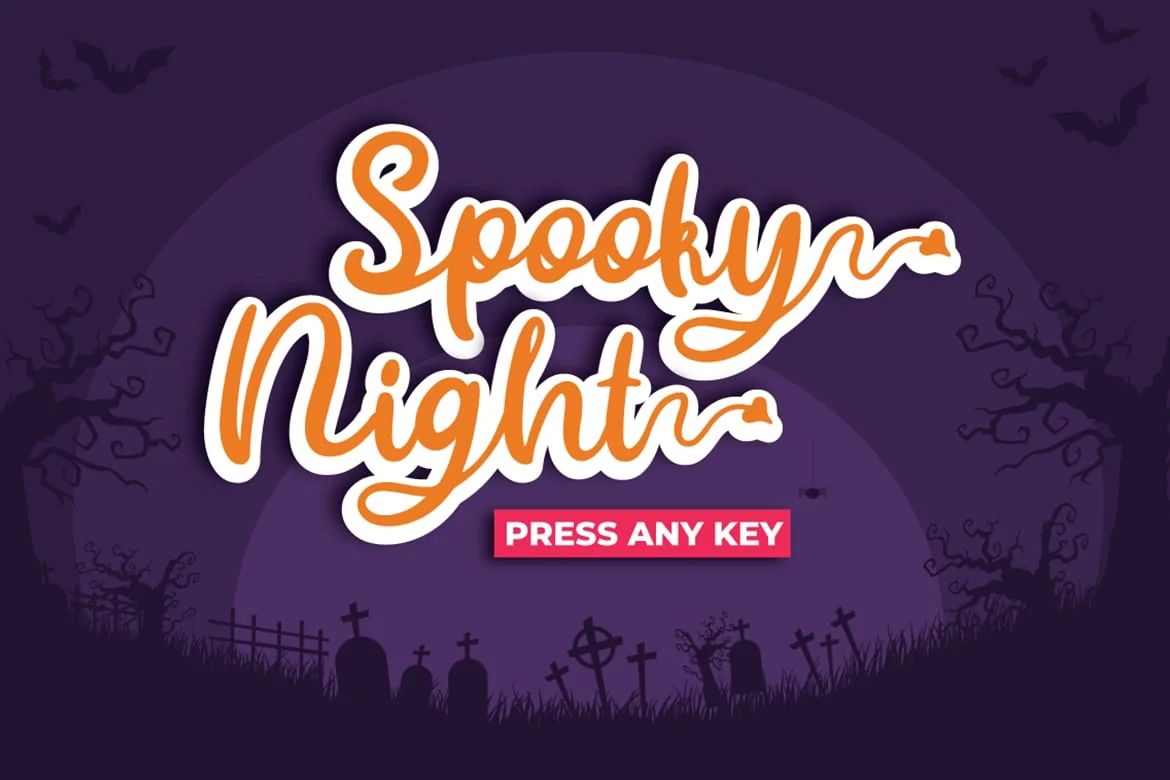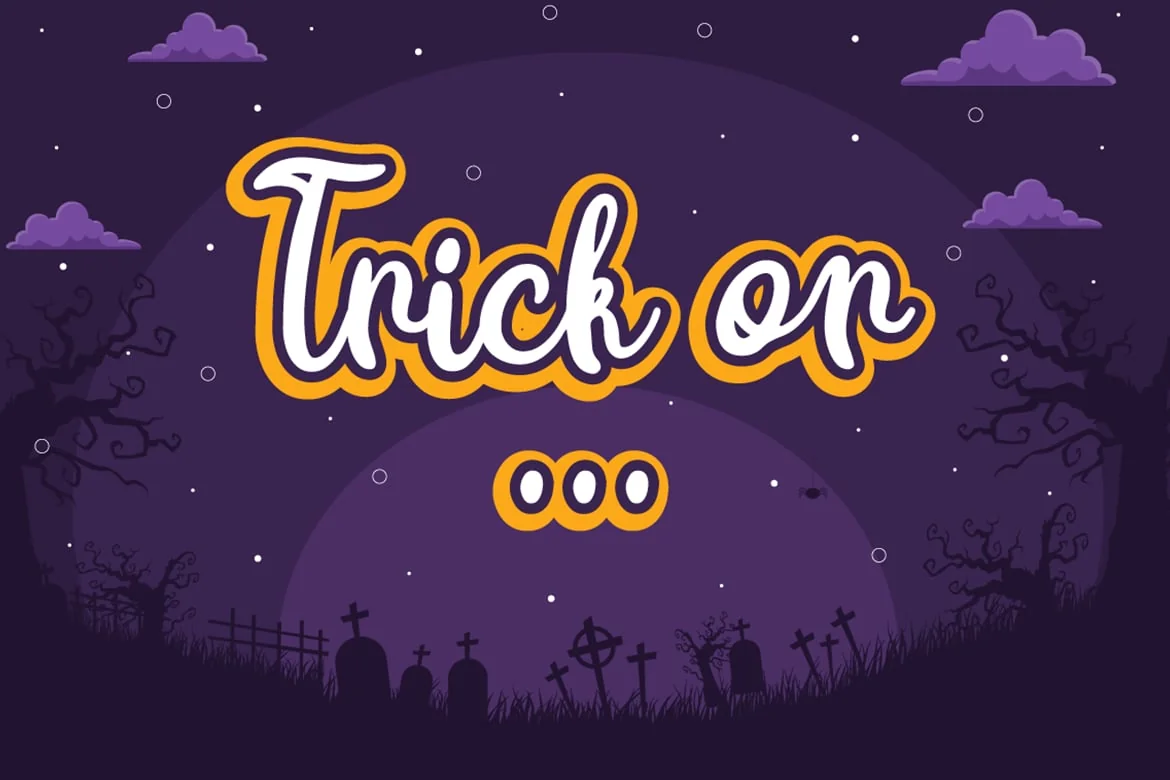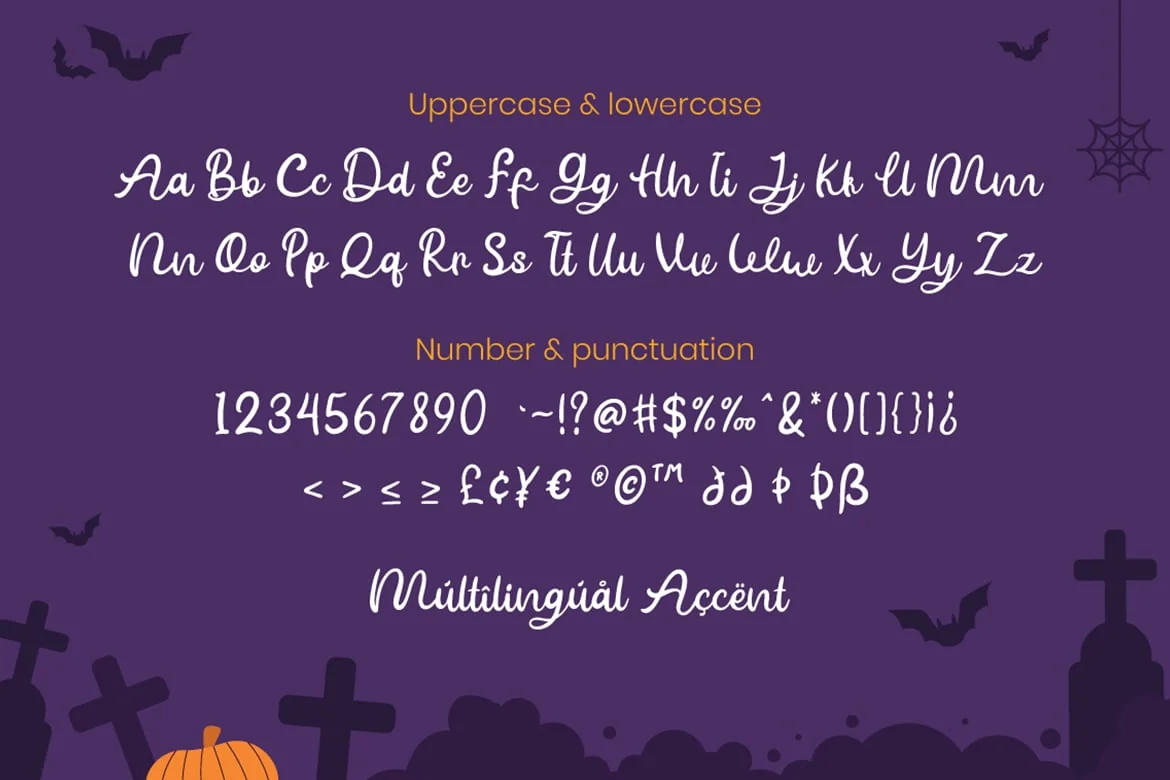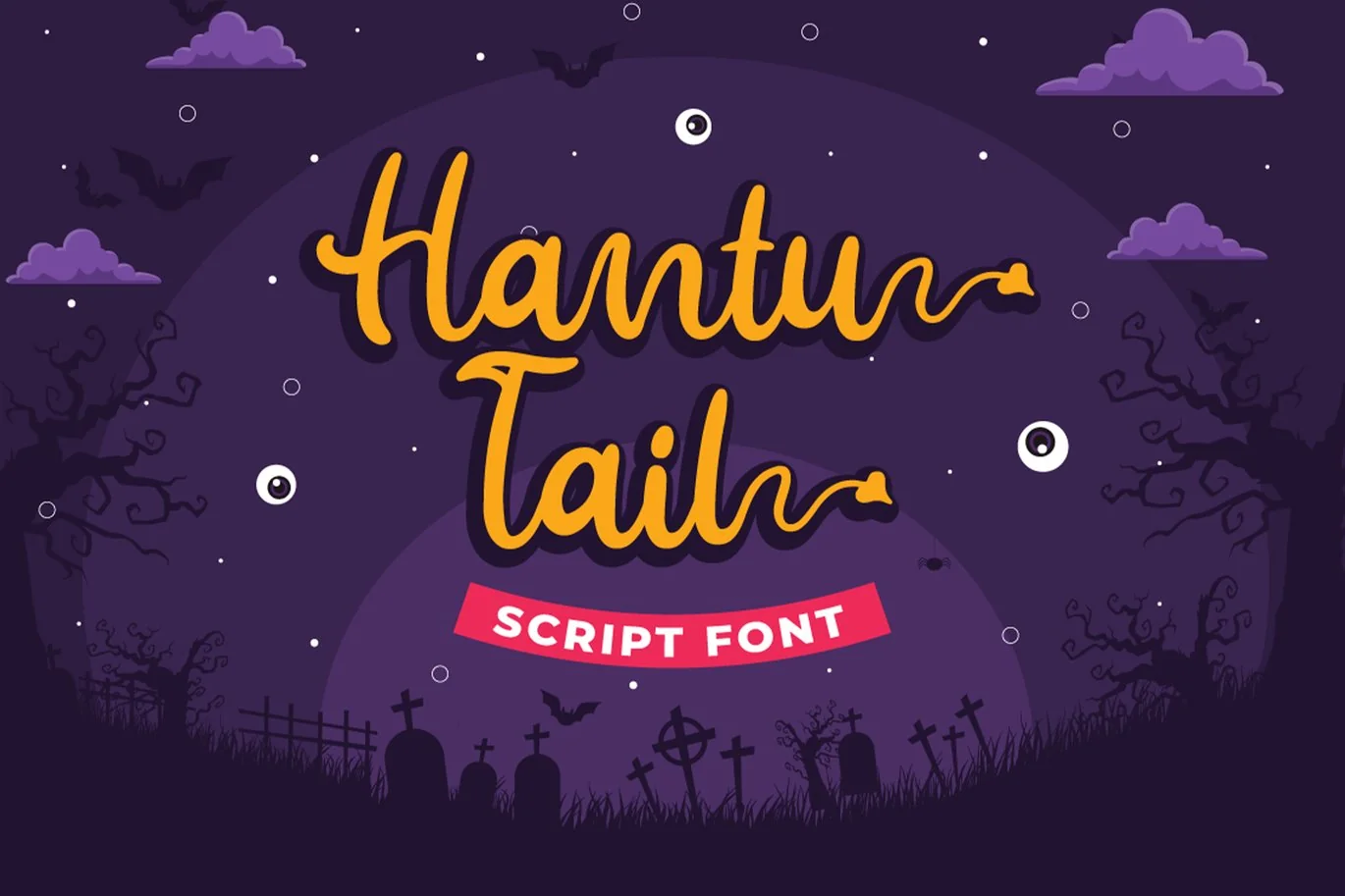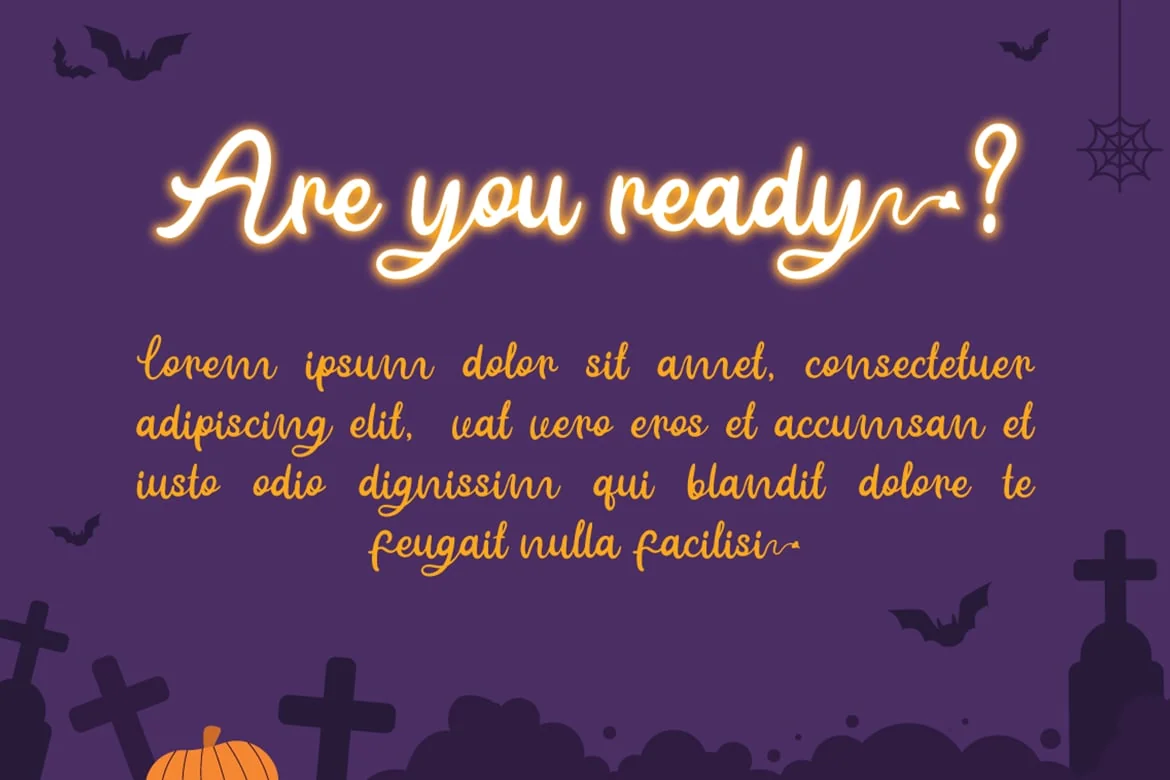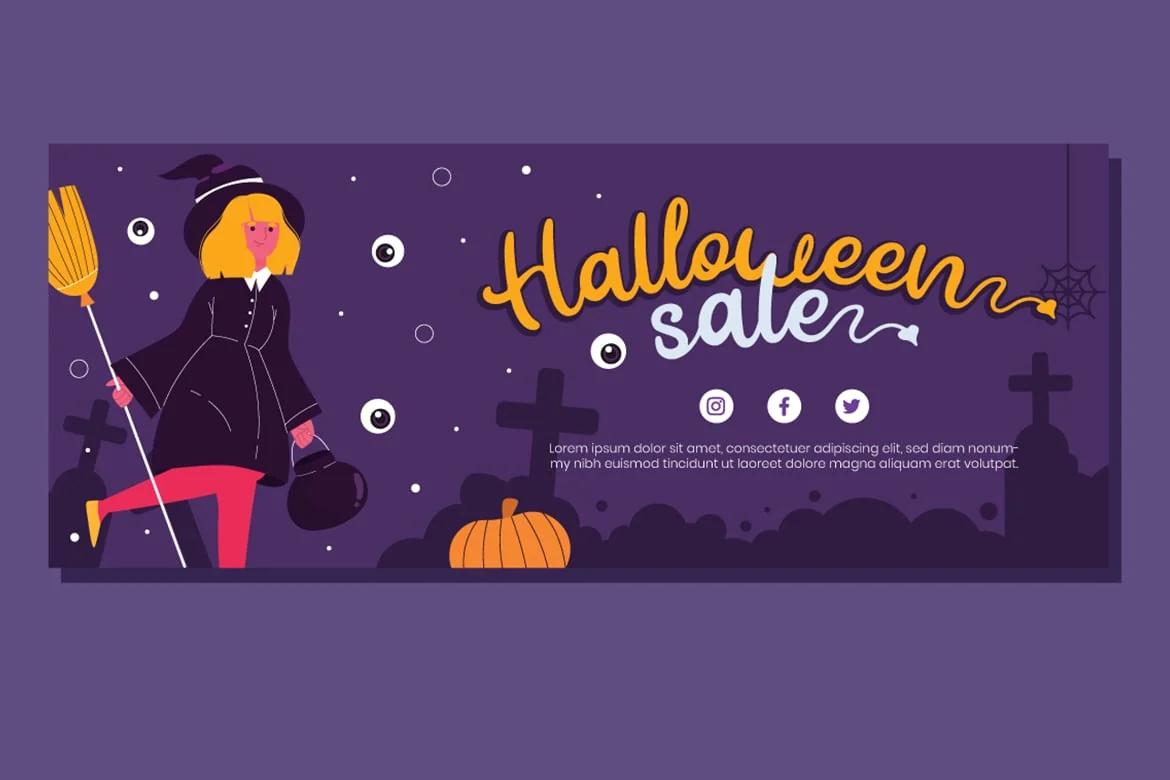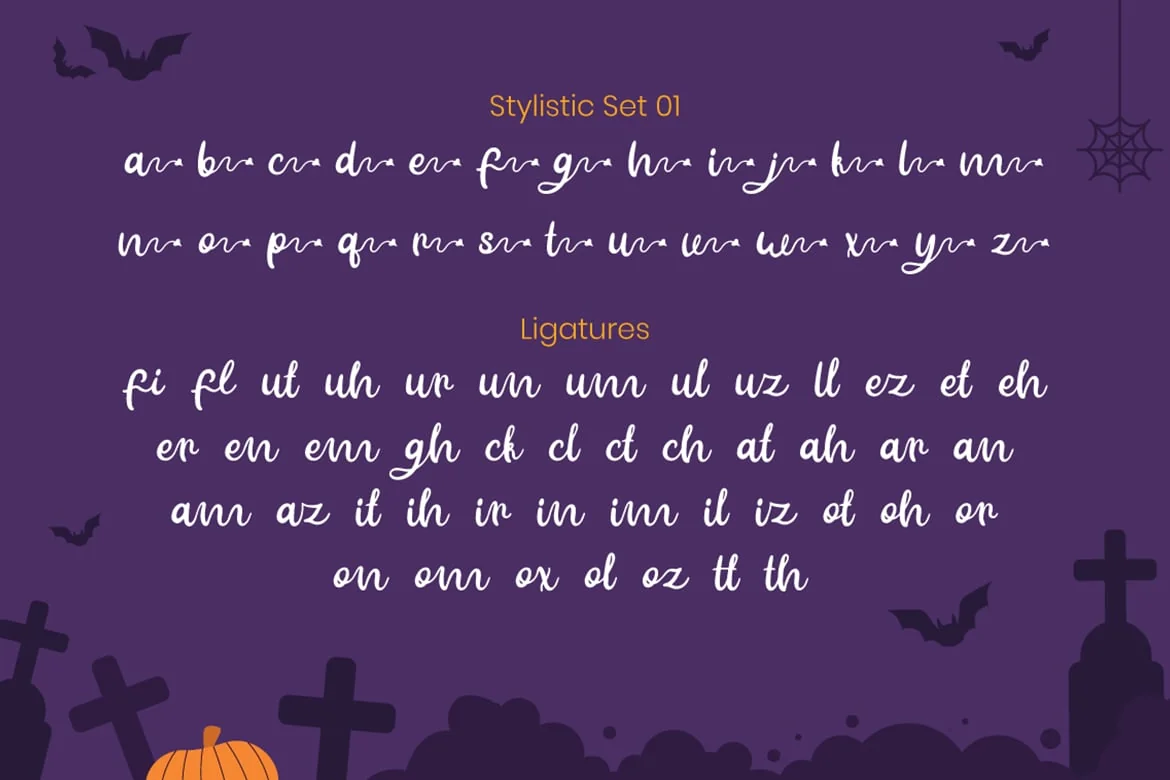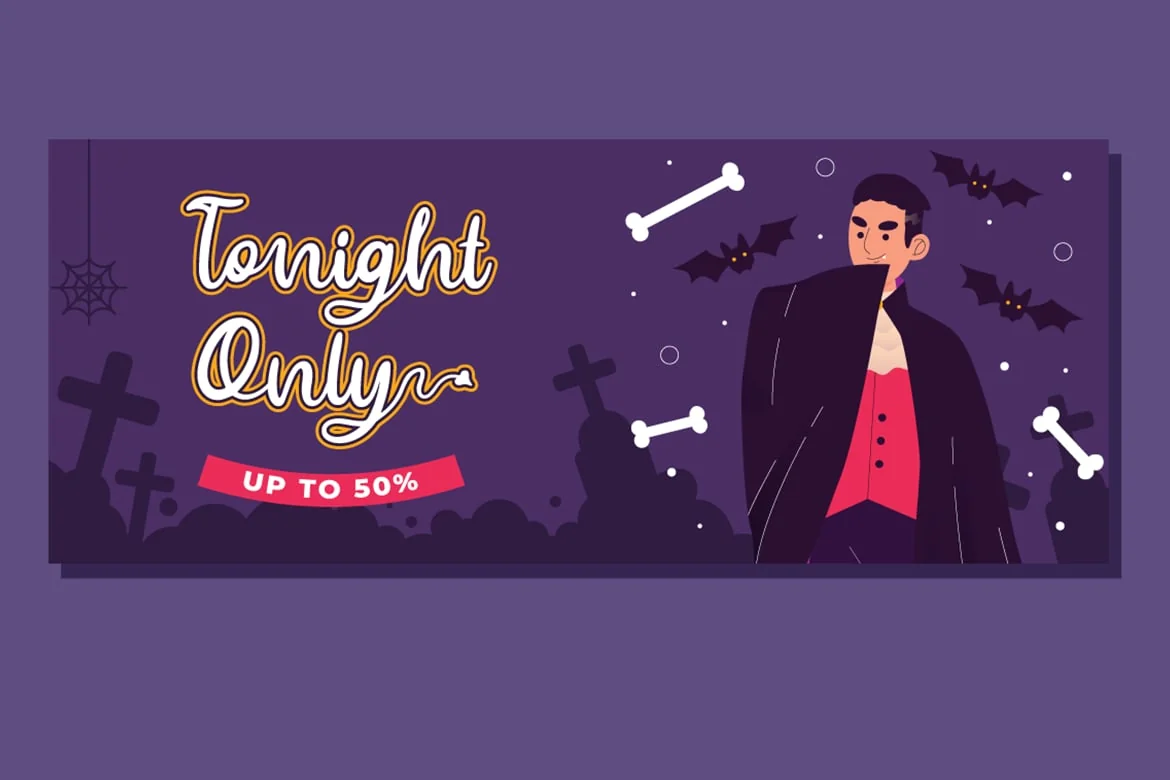
Hantu Tail – Halloween Font
Hantu Tail is a delicate and incredibly distinct Halloween Script Font. Fall in love with its incredibly versatile style and use it to create spectacular designs!
Hantu Tail perfect for halloween promotion, branding, logo, invitation, stationery, social media post, product packaging, merchandise, blog design, game titles, cute style design, Book/Cover Title and more.
- ligatures
- Ending Swash
- Multilingual, US Roman, Latin 1 Support